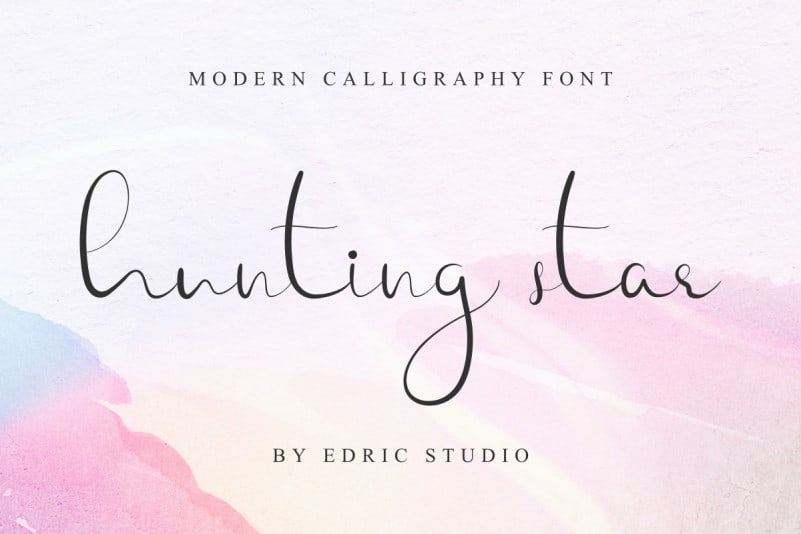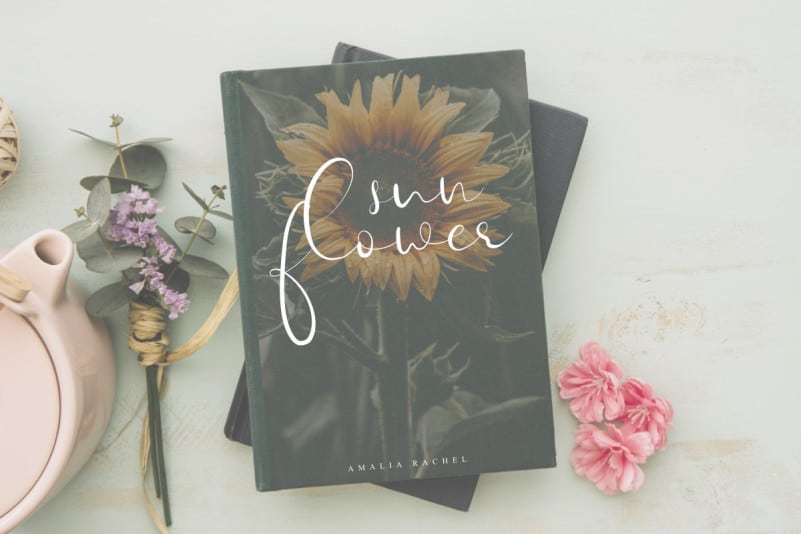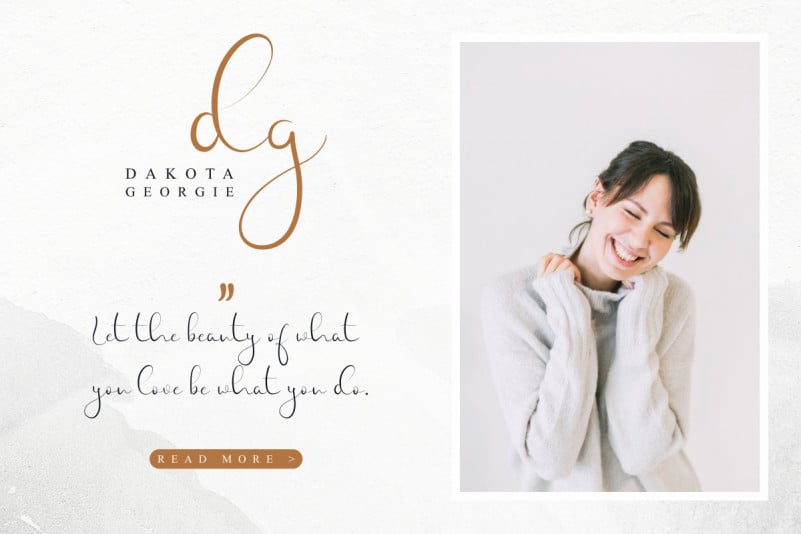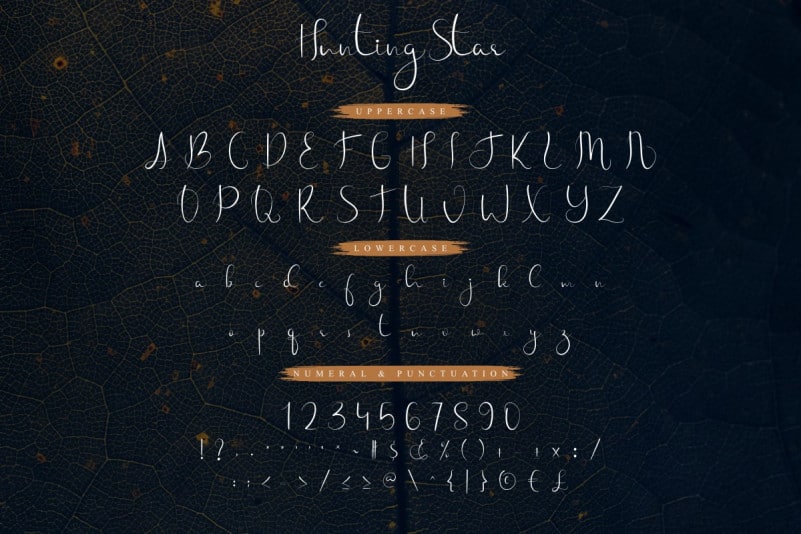
Hunting Star Calligraphy Font
Hello, Hunting Star calligraphy font. It will be great for photography, wedding, invitation, watermark, signature online, logo, promo, boutique, fashion, designer, photographer, beauty skin car, hair salon, architect, hand written, hand made, handrawn.